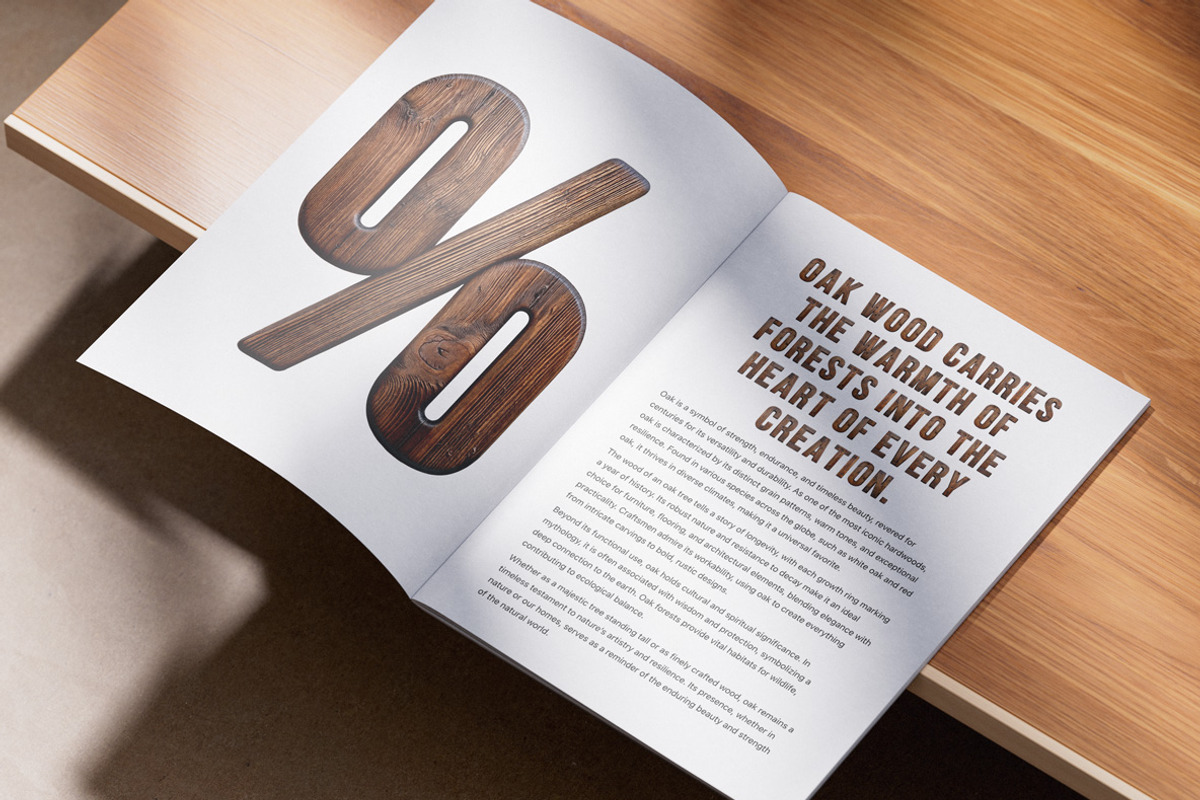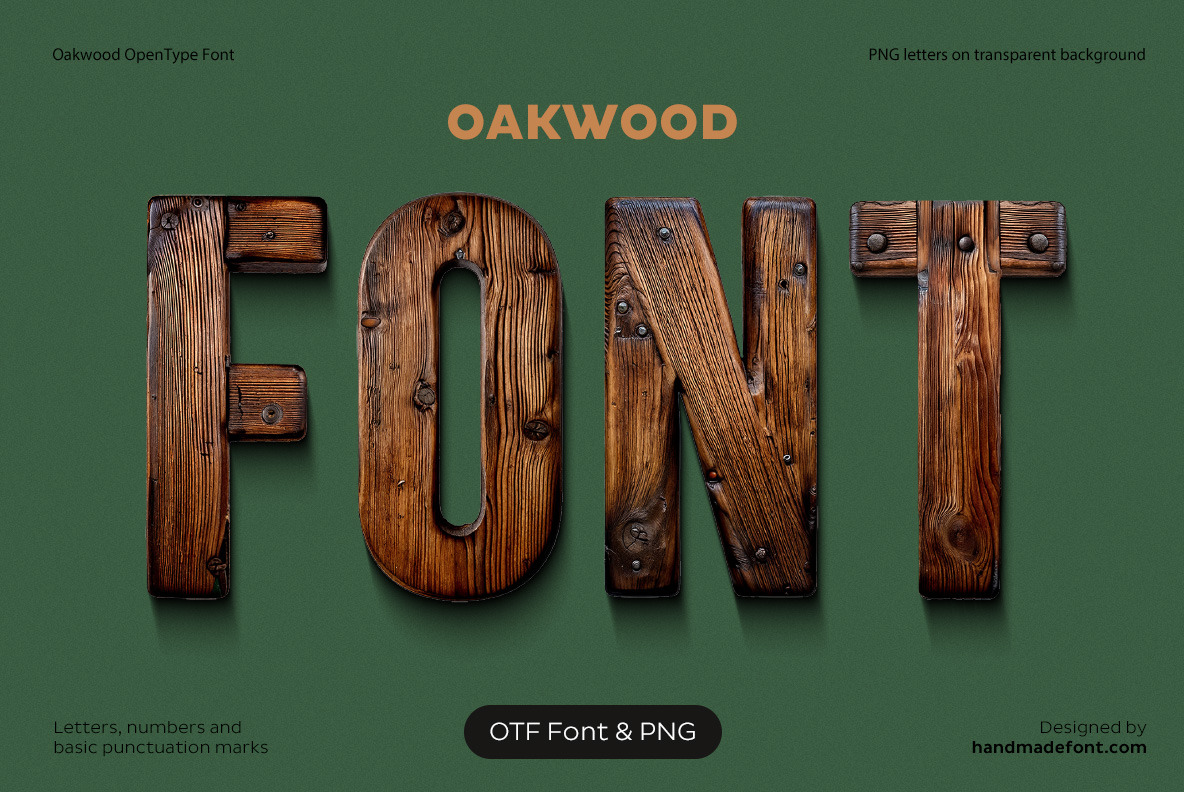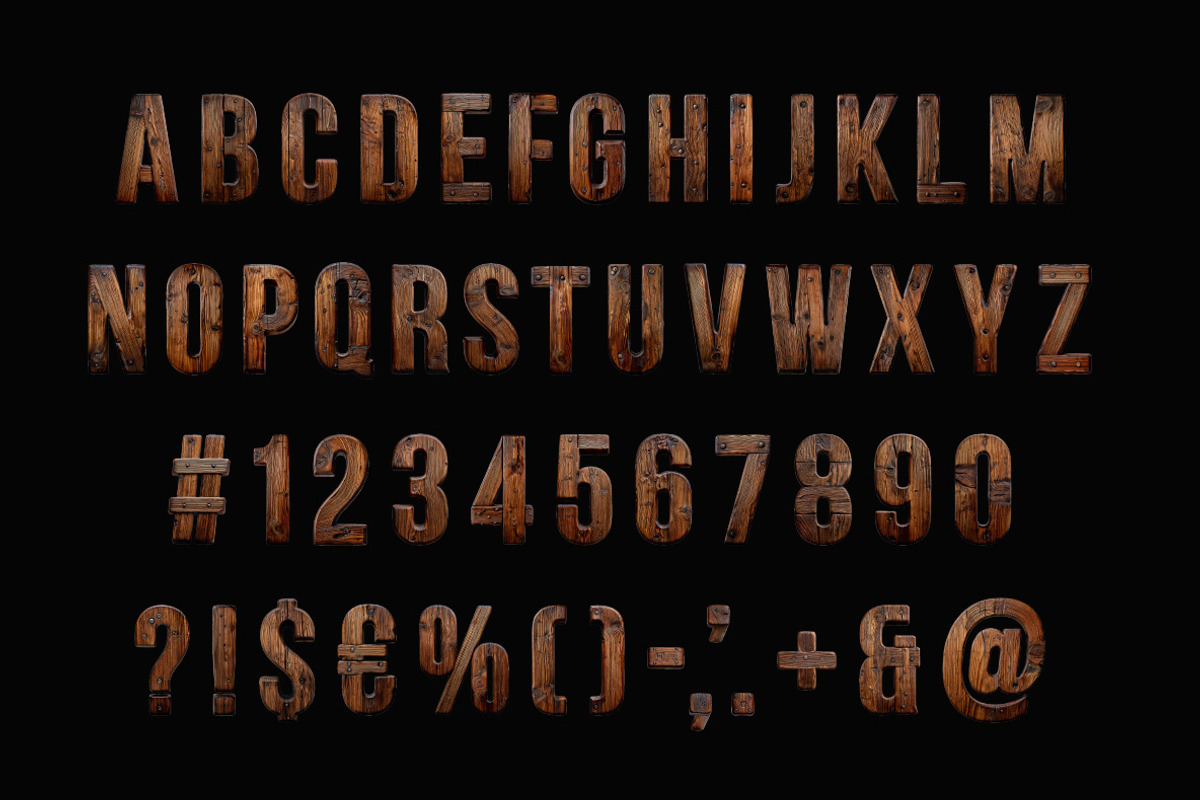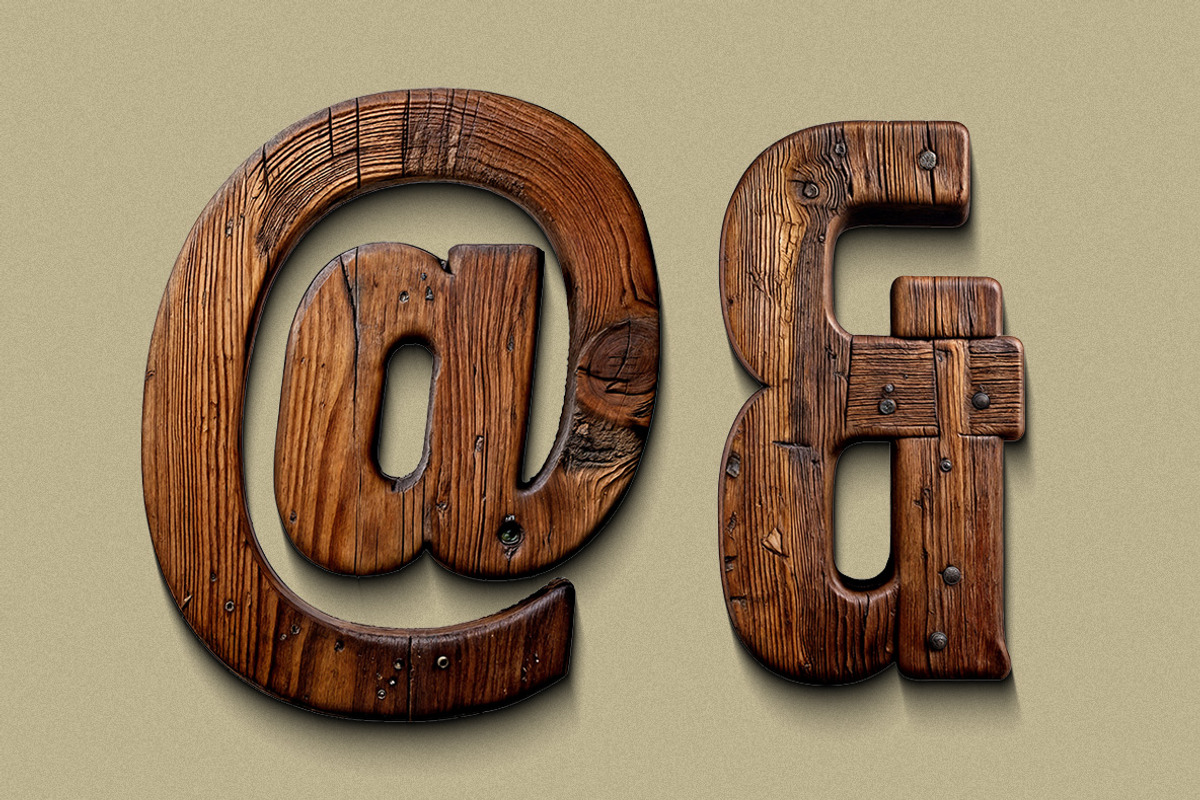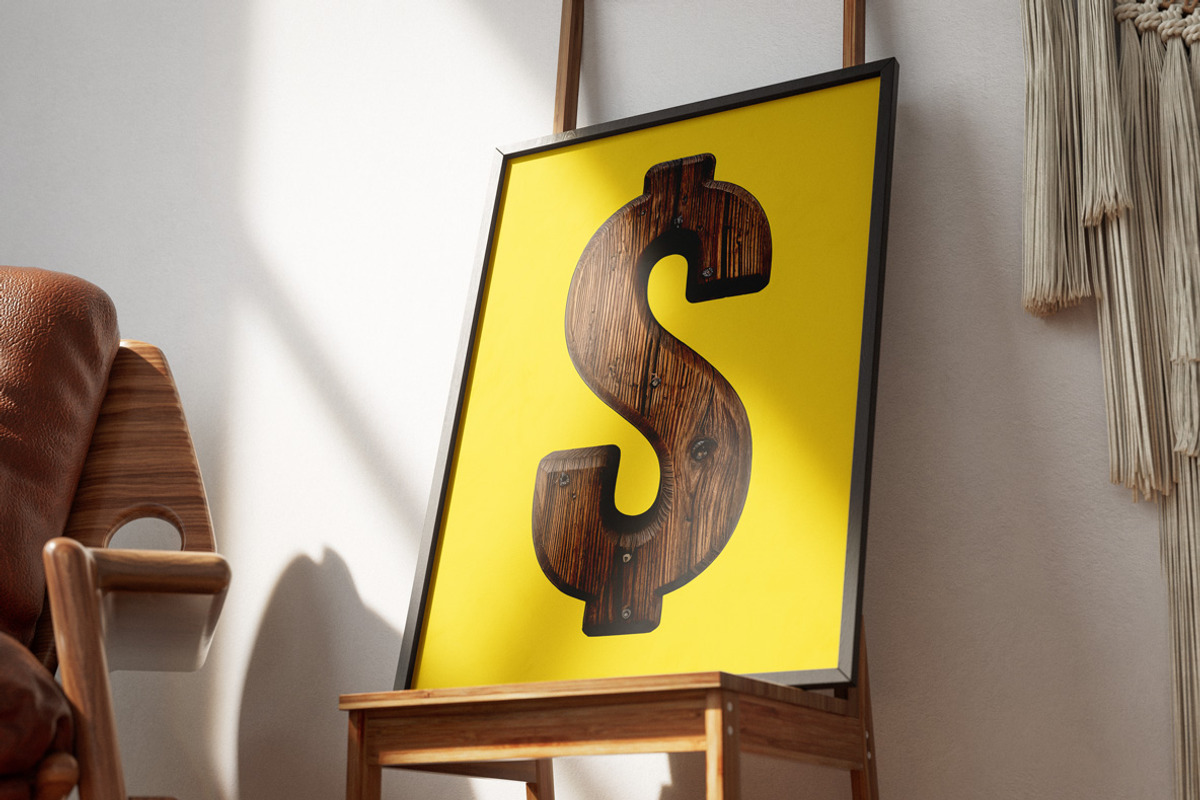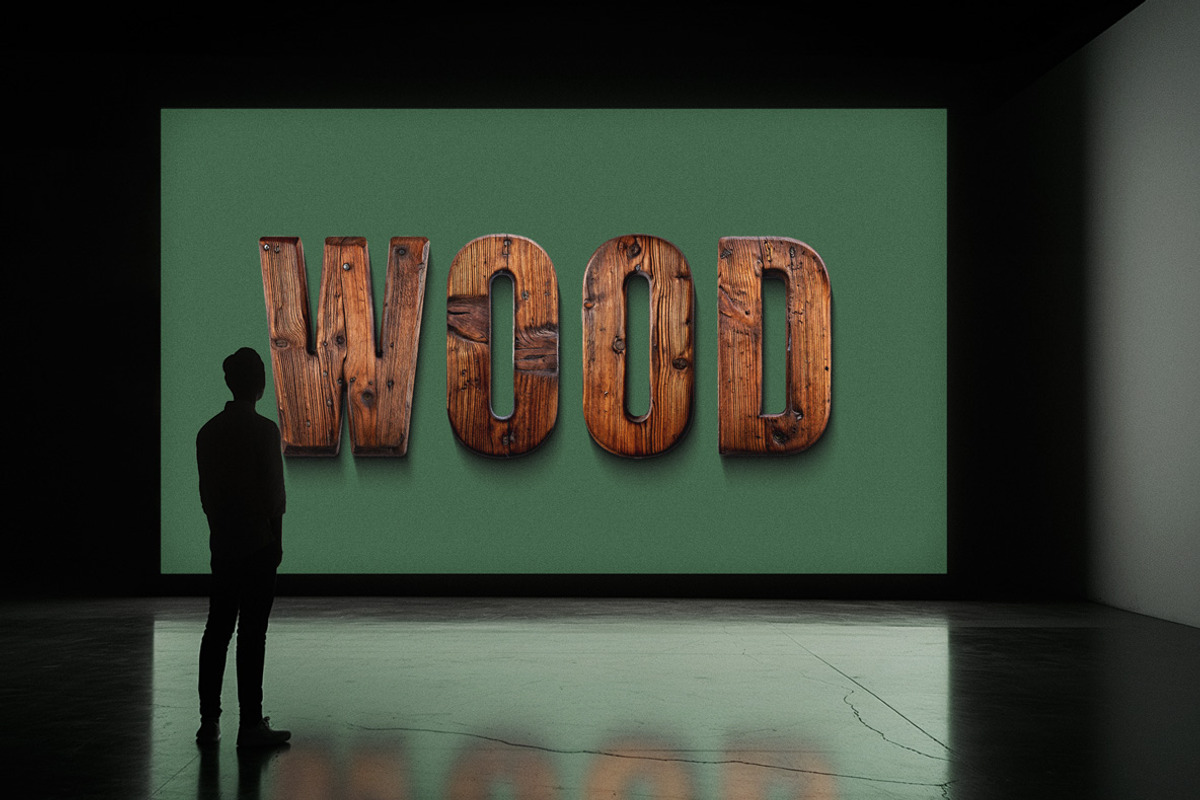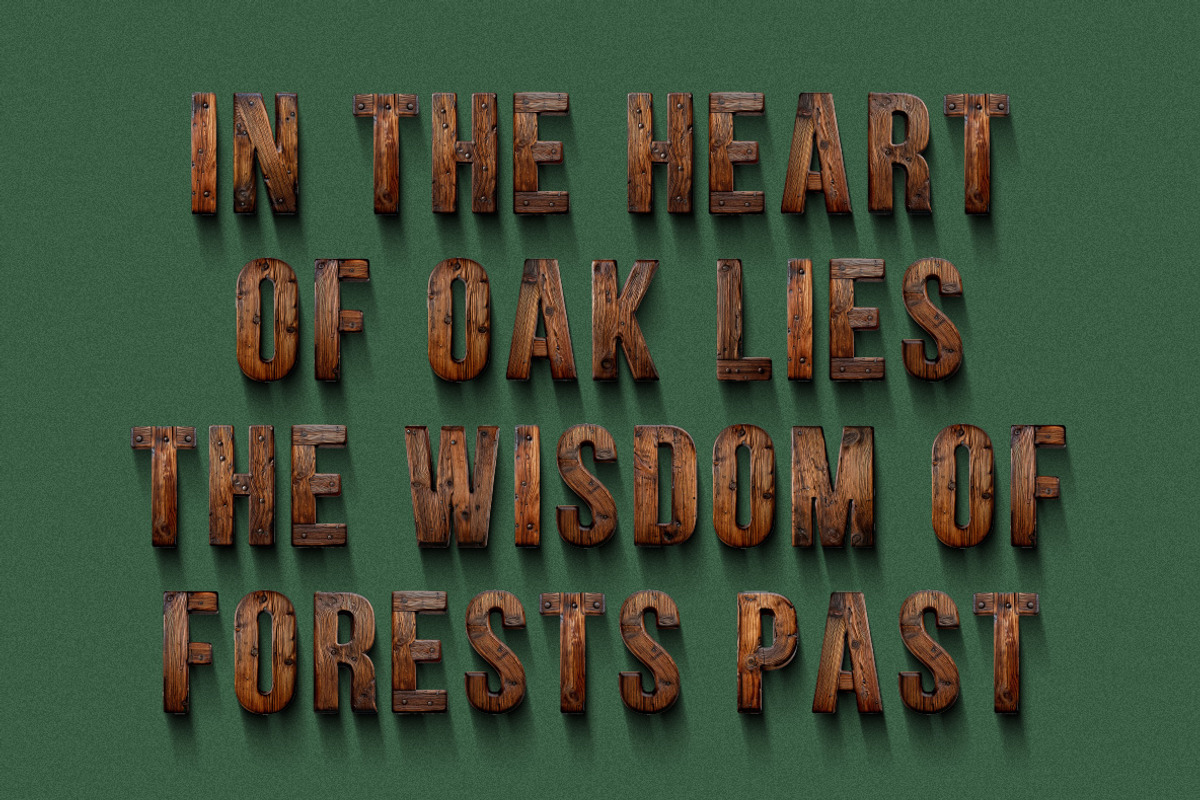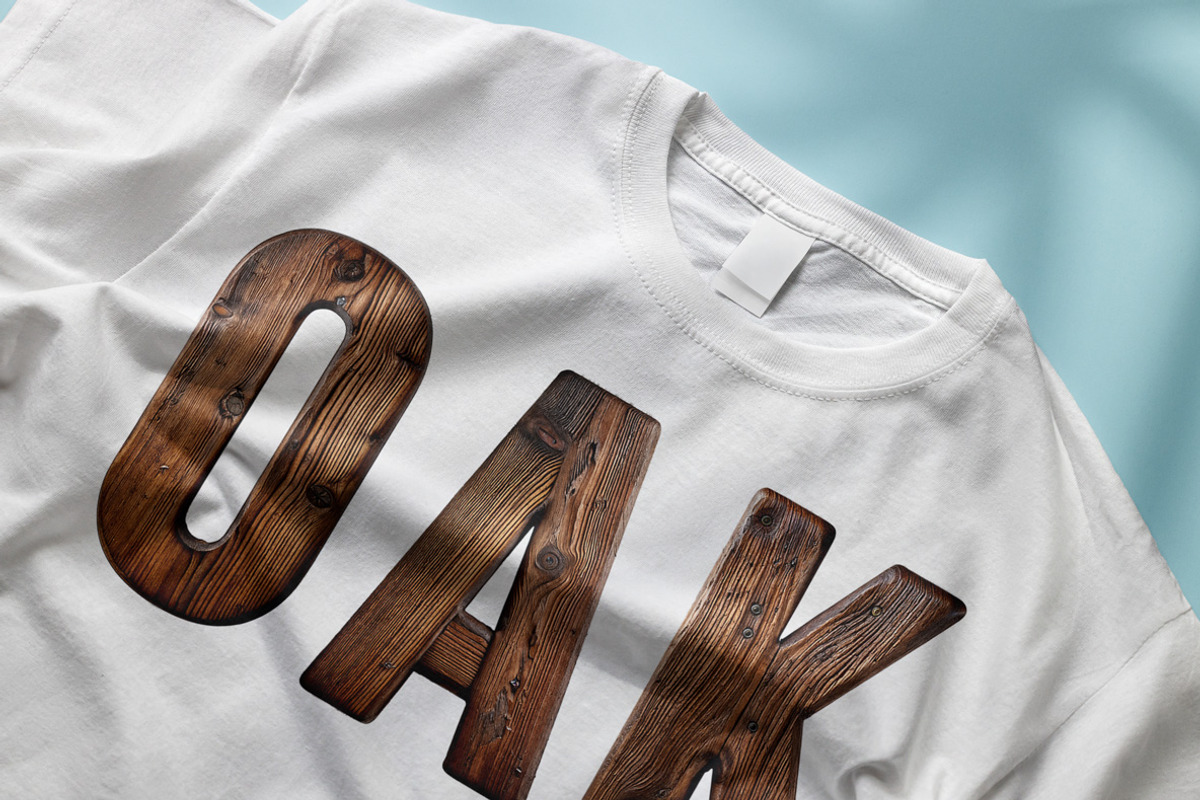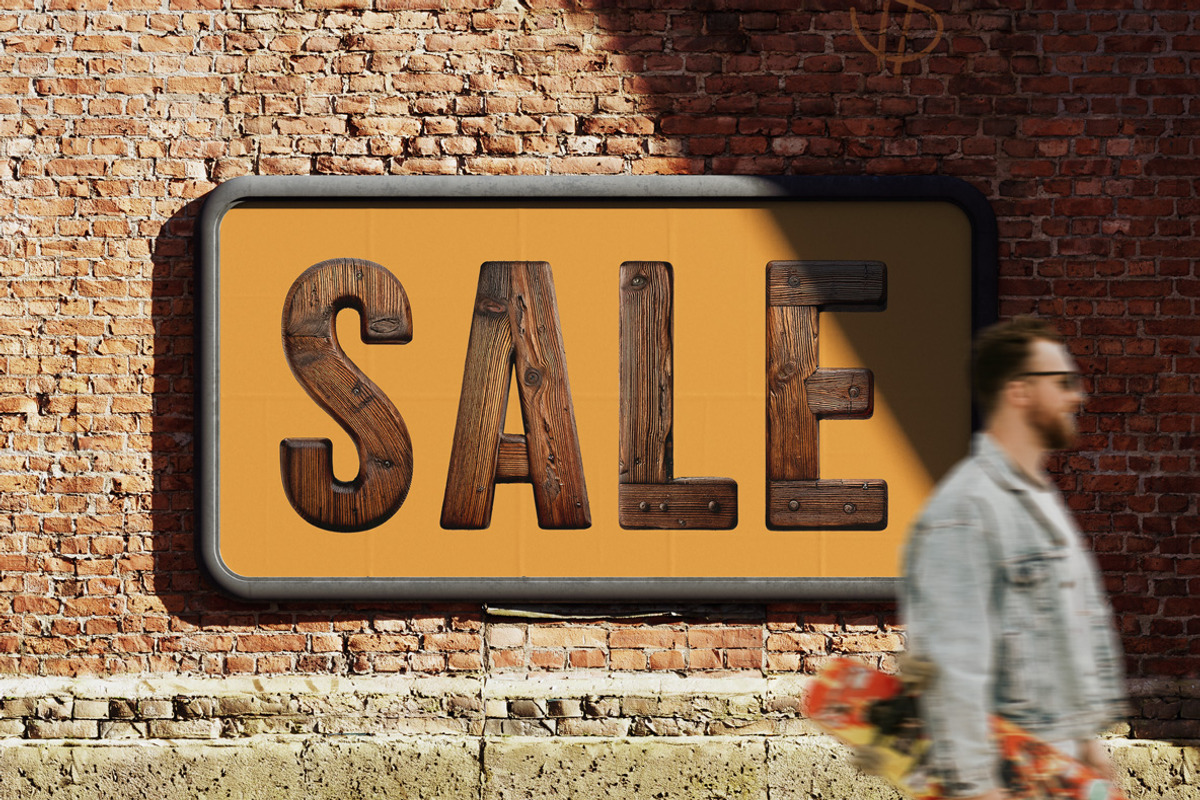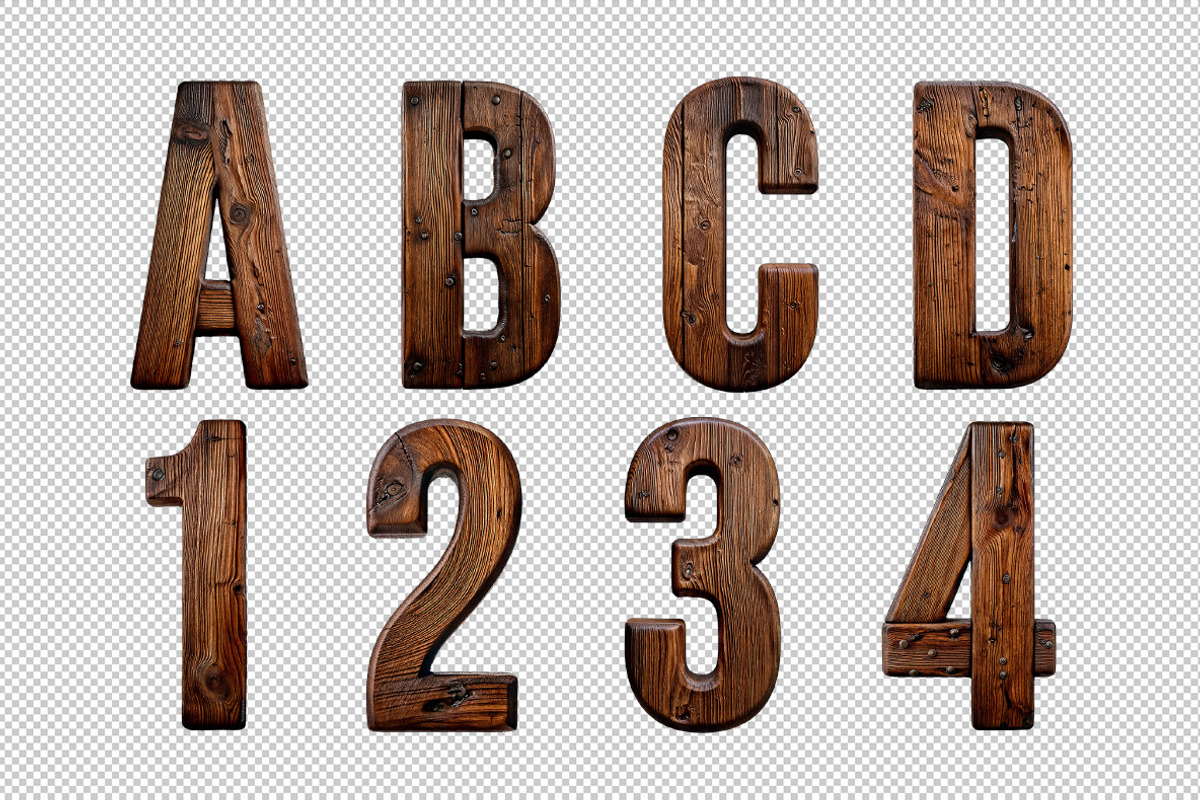
Rustic Oakwood Font
Natural and timeless, the Oakwood Font embodies the rich essence of aged wood, evoking the strength of an oak tree. Each letter is meticulously crafted from hardwood, showcasing visible wood grain, natural knots, and organic grooves. This oak-inspired font blends rustic wood charm with a polished yet raw aesthetic. The deep brown and golden hues resemble authentic timber, enhancing its warm, earthy appeal. Perfect for nature-inspired designs, oak lettering brings a sense of heritage and craftsmanship. Whether used in logos or artistic projects, this wood alphabet exudes an artisanal touch, rooted in the beauty of old wood.